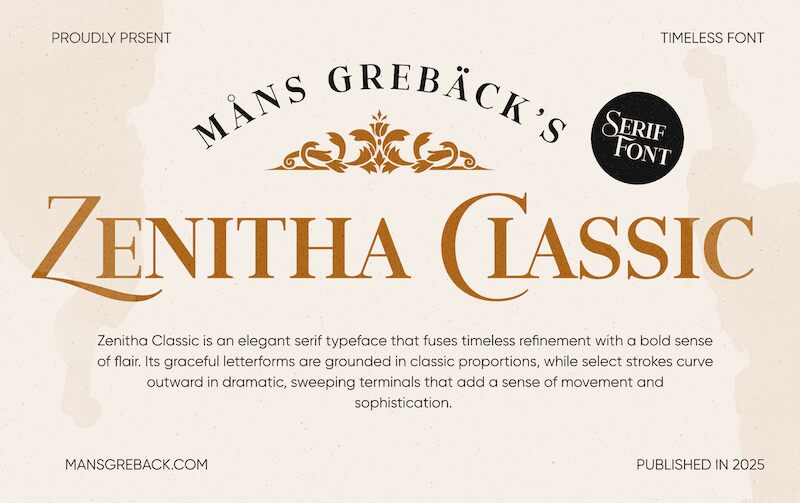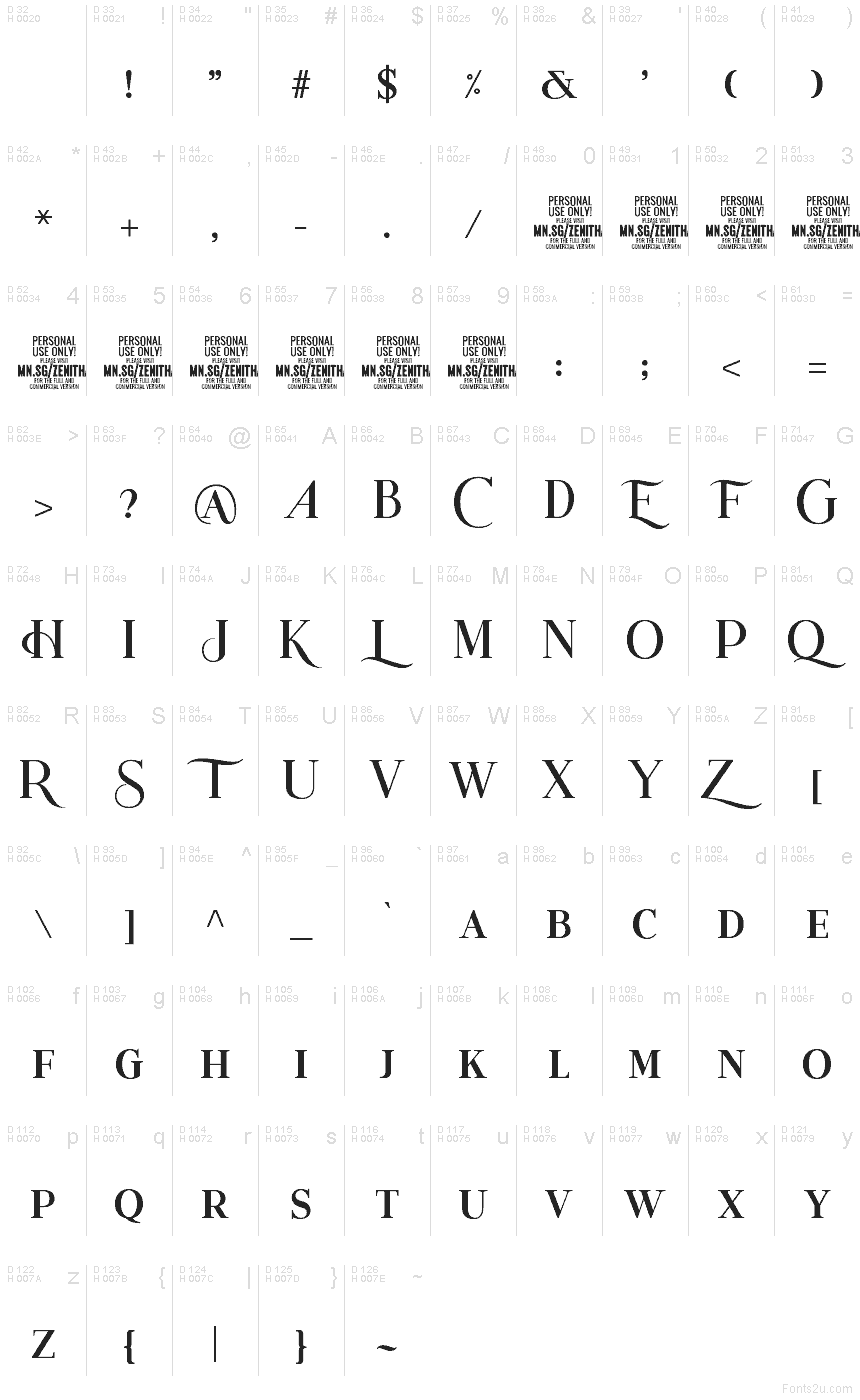
Zenitha Classic PERSONAL USE Regular
Zenitha Classic font by Mans Greback is a free serif typeface that marries tailored, old-world elegance with a dramatic, almost theatrical sweep. Its slim, upright forms feel refined and composed, while those extended, curling strokes at the edges give each word a sense of motion, like a silk ribbon catching the light. The spacing is tight and confident, making headlines look dense and luxurious rather than airy or fragile.
Using Zenitha Classic, your titles and nameplates gain an instant sense of ceremony—wonderful for book covers, fashion branding, wedding stationery, wine labels, magazine mastheads, and luxury packaging. This free font works beautifully when set large, with plenty of negative space around it, and pairs effortlessly with a simple sans-serif for body text to keep the ornate curves in the spotlight.